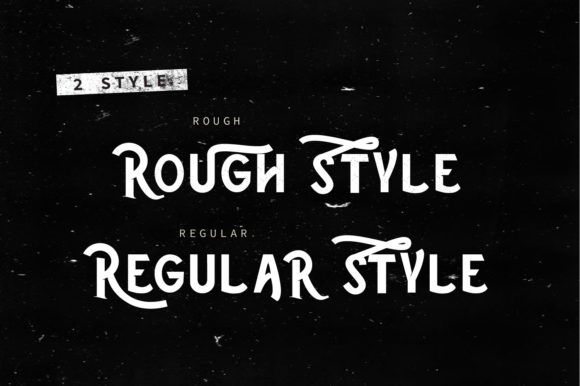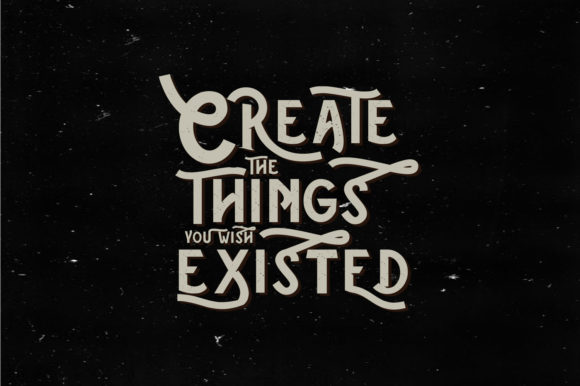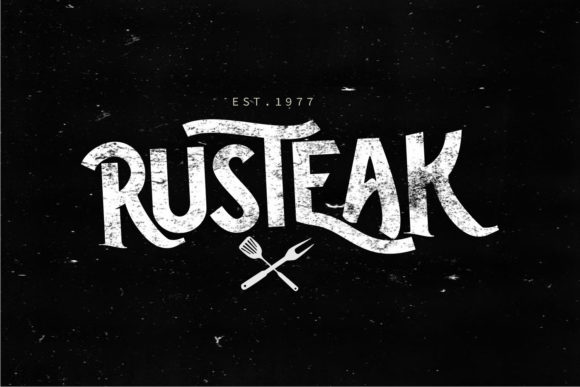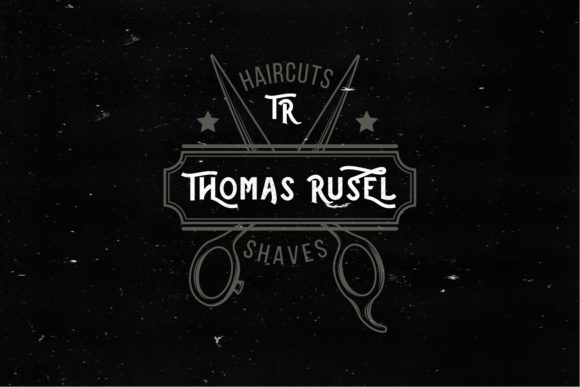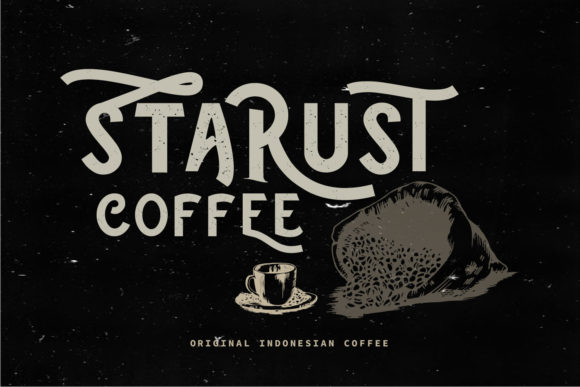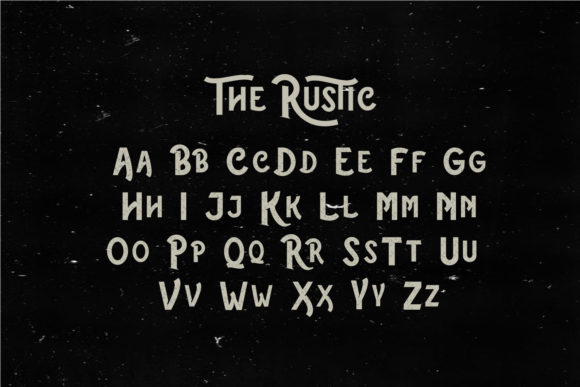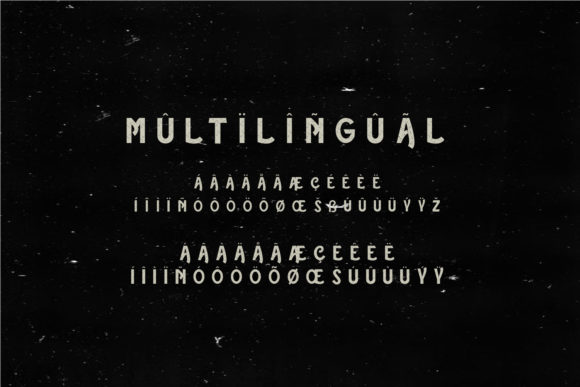
The Rustic is a bold and striking display font. It contains amazing letter forms which will make any design stand out.
The Rustic is perfect for branding projects, logo designs, product packaging and more!